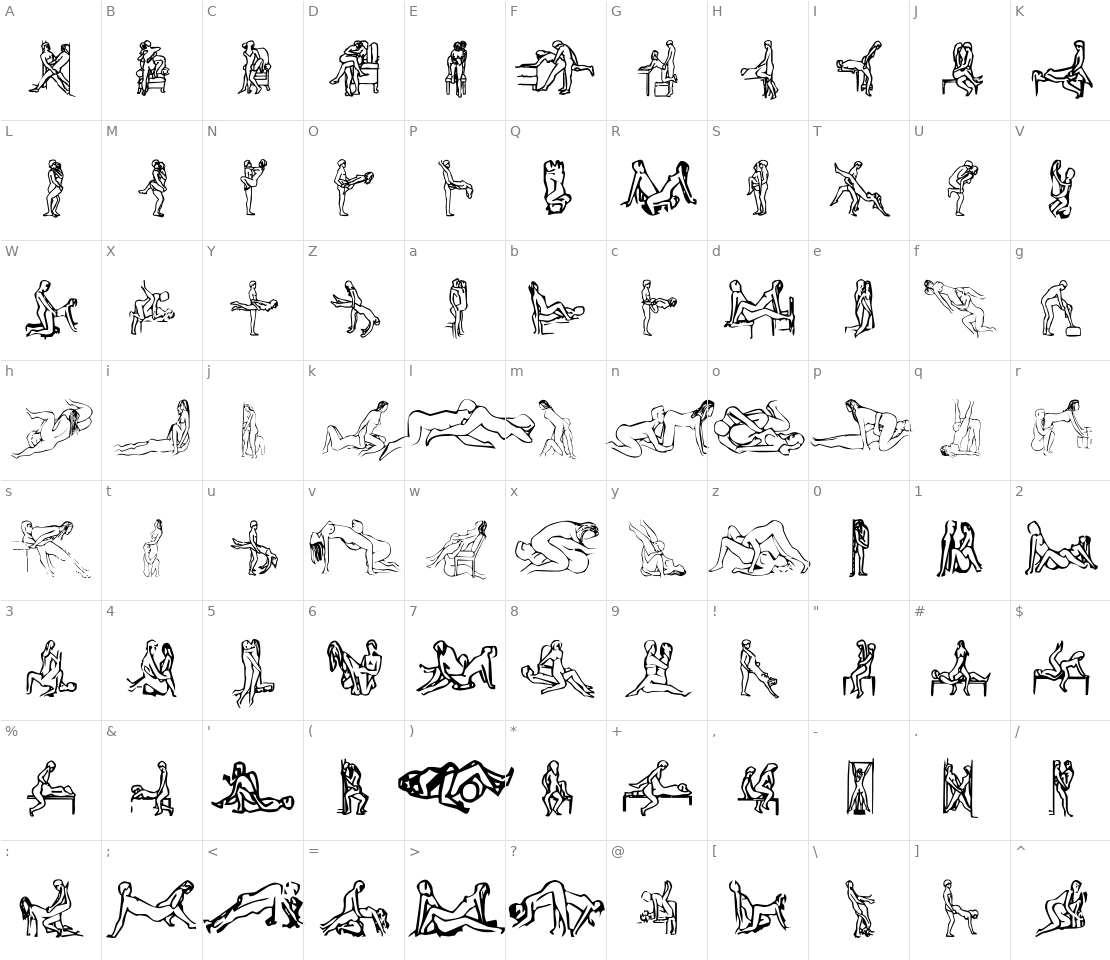
That Luvin' Feelin
That Luvin' Feelin is a dingbat font from Pennyzine featuring line-art illustrations of people and figures in various intimate poses. The drawings have a loose, hand-illustrated quality that keeps them feeling more playful than clinical. Strictly a novelty symbol set, not a text face, aimed at adult-themed design work where illustration icons are needed without commissioning custom art.